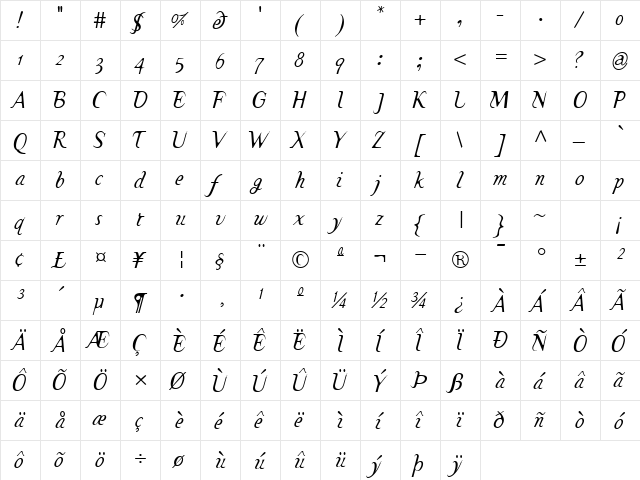
TemaCantanteItalic Italic
Design Context for TemaCantanteItalic Typeface
TemaCantanteItalic takes a measured approach to typography — its balanced proportions and neutral character make it a reliable workhorse for both digital and print work. The dynamic lean of this cut emphasises speed and emphasis in any layout.